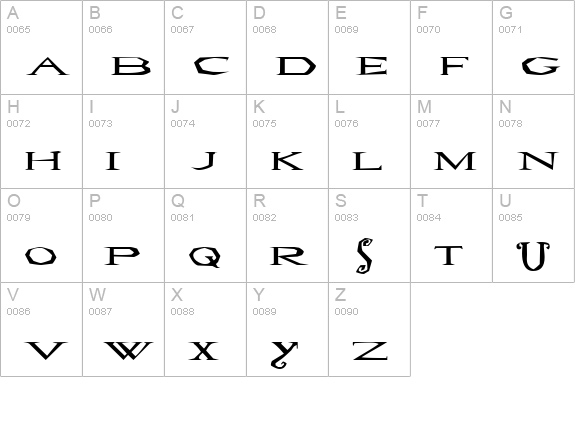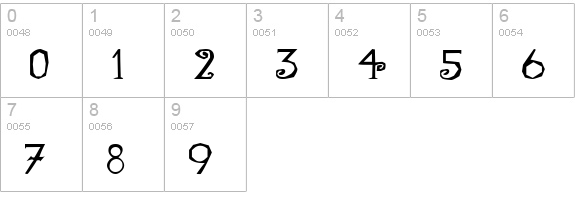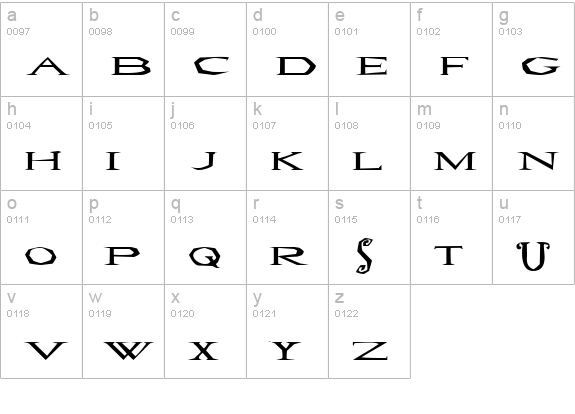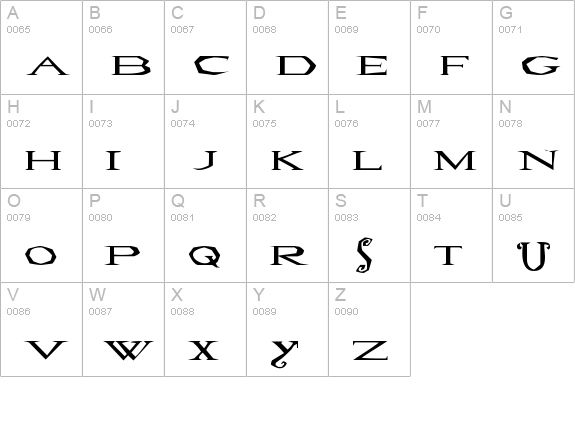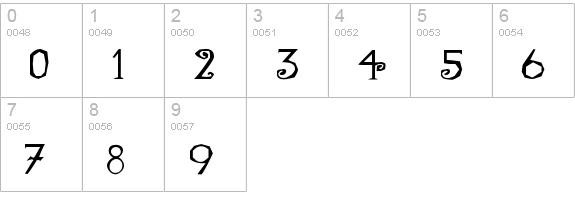
Lovesexy Font Details
Lovesexy font is a sleek and stylish typeface that exudes elegance and sophistication. With its unique blend of modern and classic design elements, this font is perfect for adding a touch of flair to your projects. Whether you're creating invitations, posters, or branding materials, Lovesexy font will make your text stand out with its bold and eye-catching appearance. The best part? Lovesexy font is completely free to download at FontsMarket.com. That's right, you can easily enhance your designs with this stunning font without having to spend a penny. So why wait? Add a touch of glamour to your projects today with Lovesexy font – the perfect choice for anyone looking to make a statement with their typography.